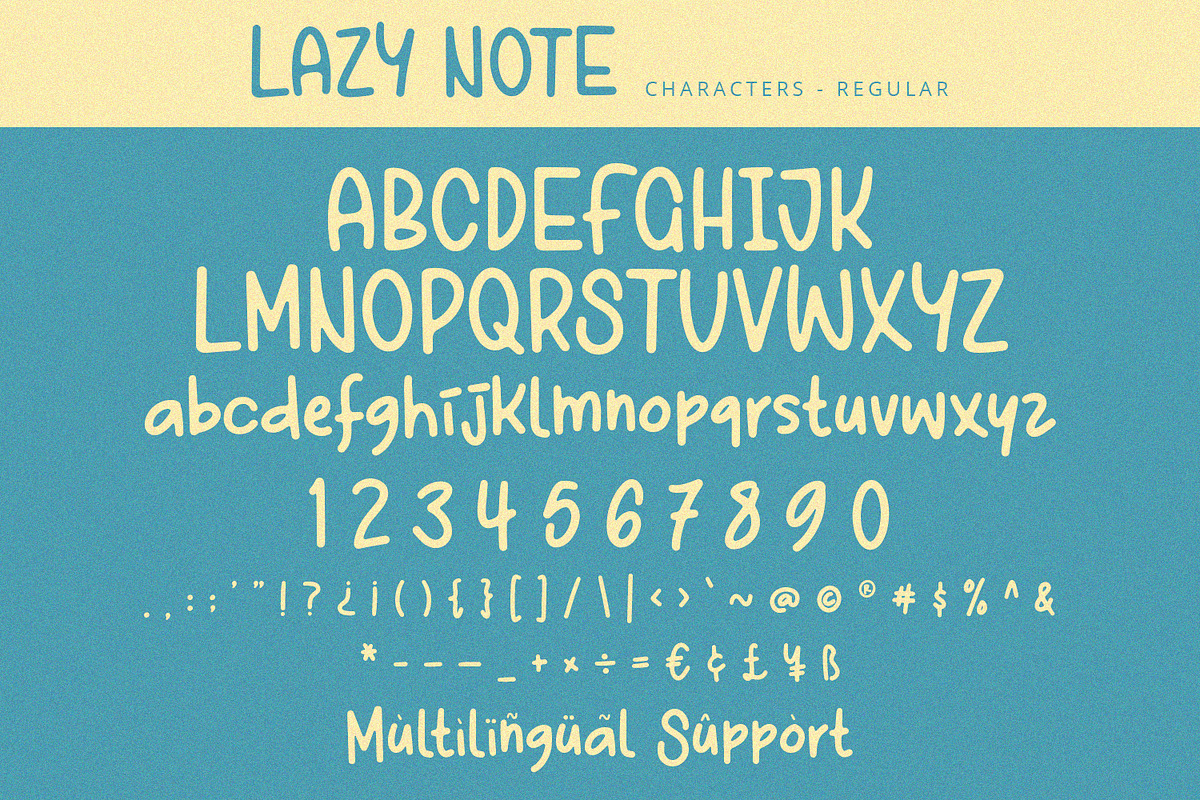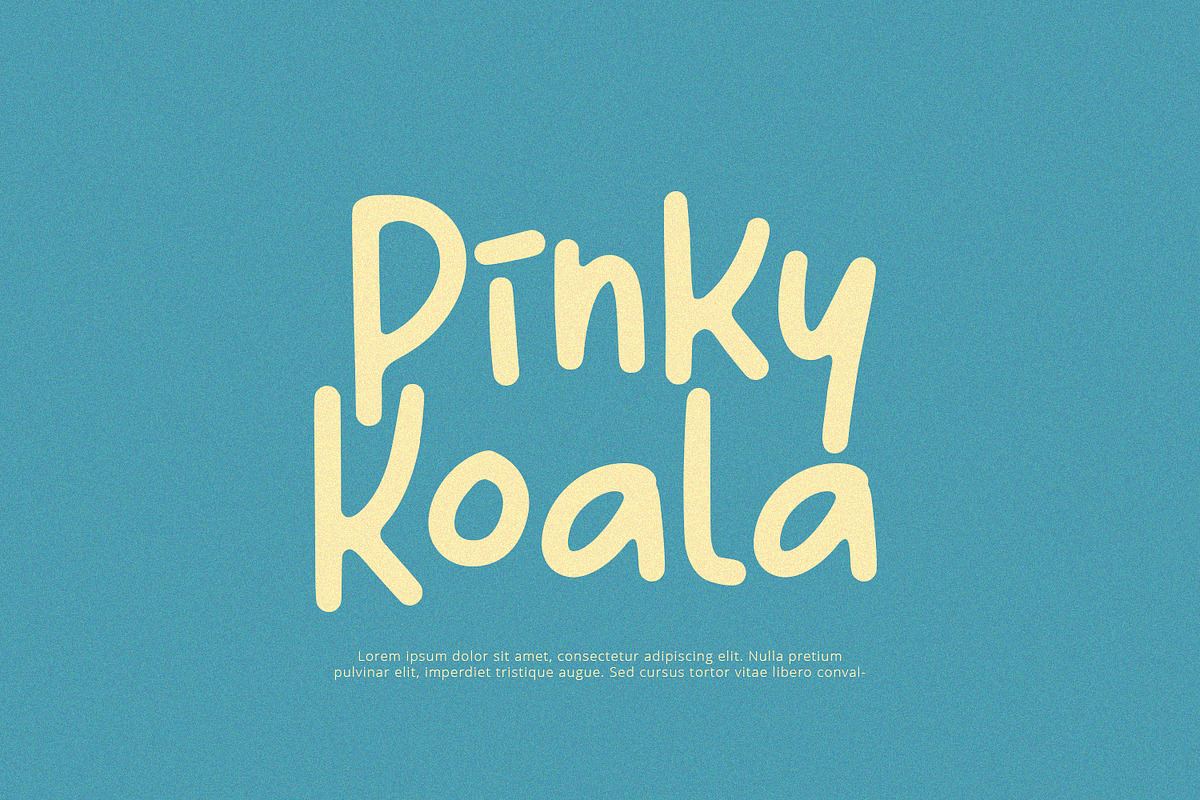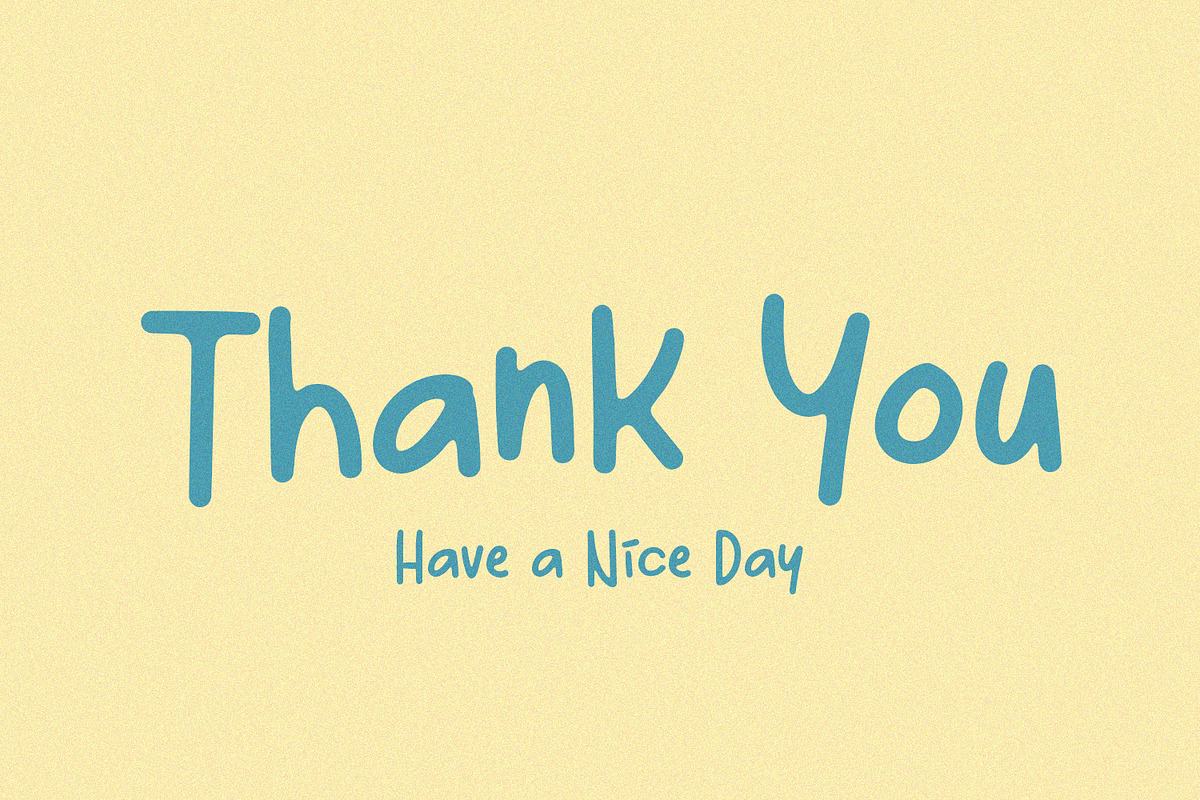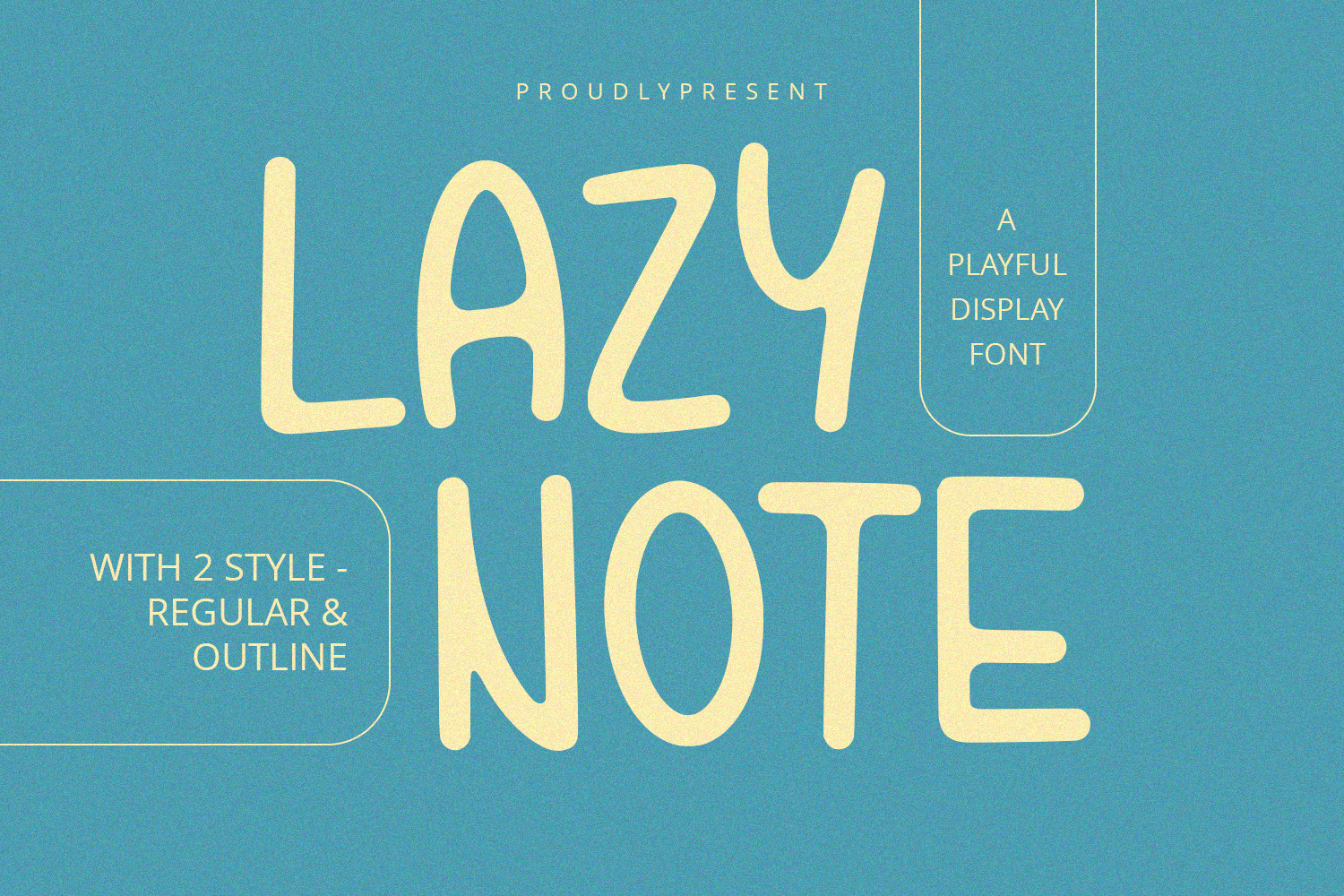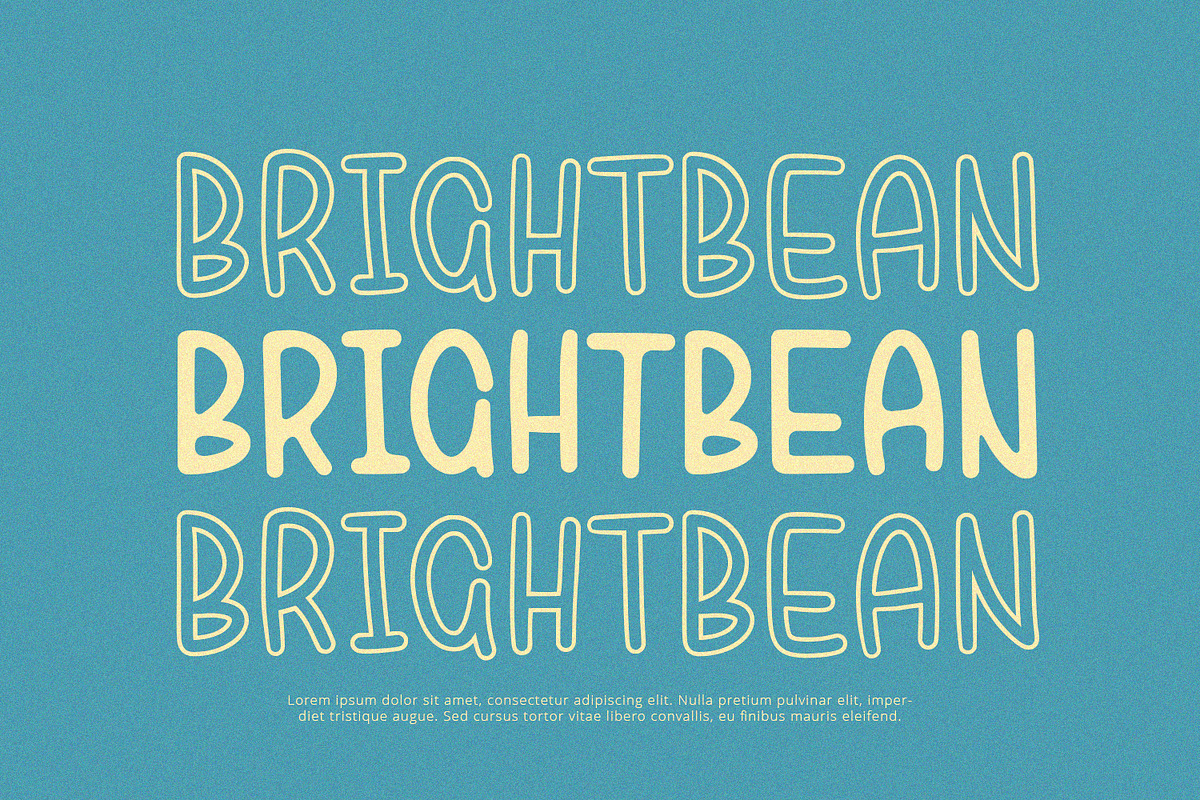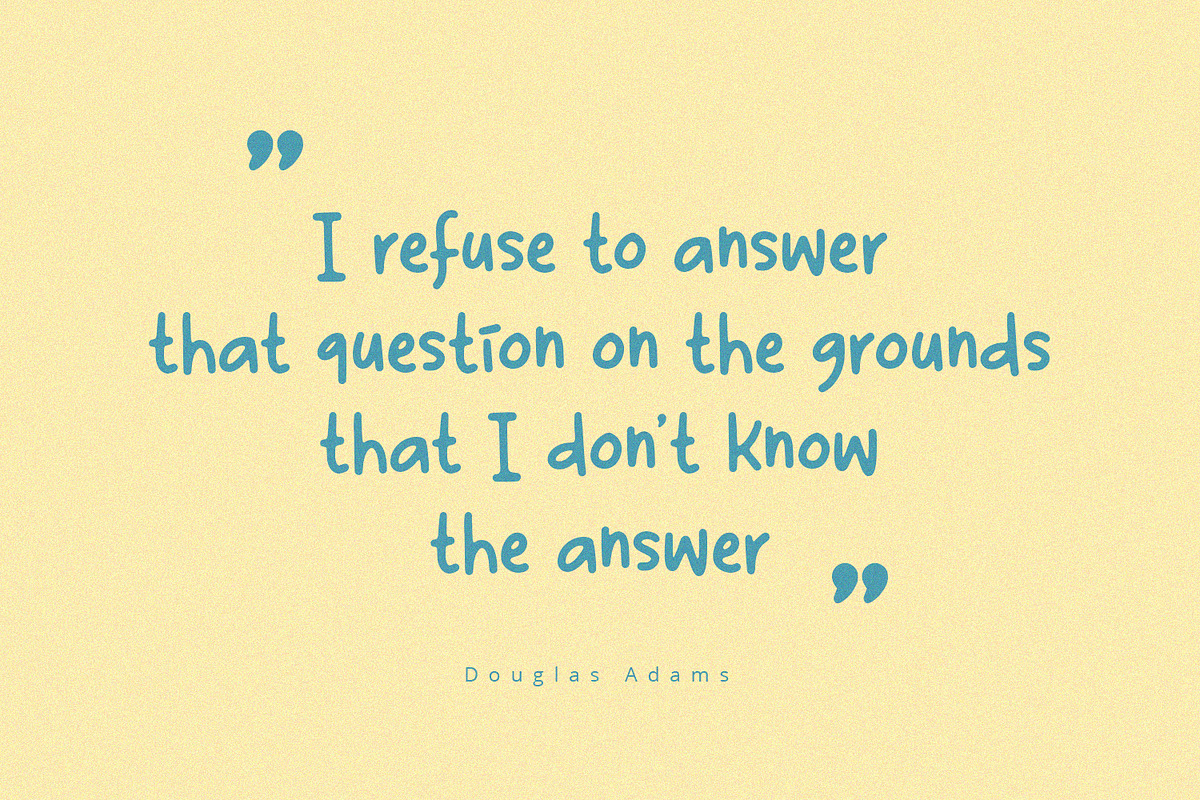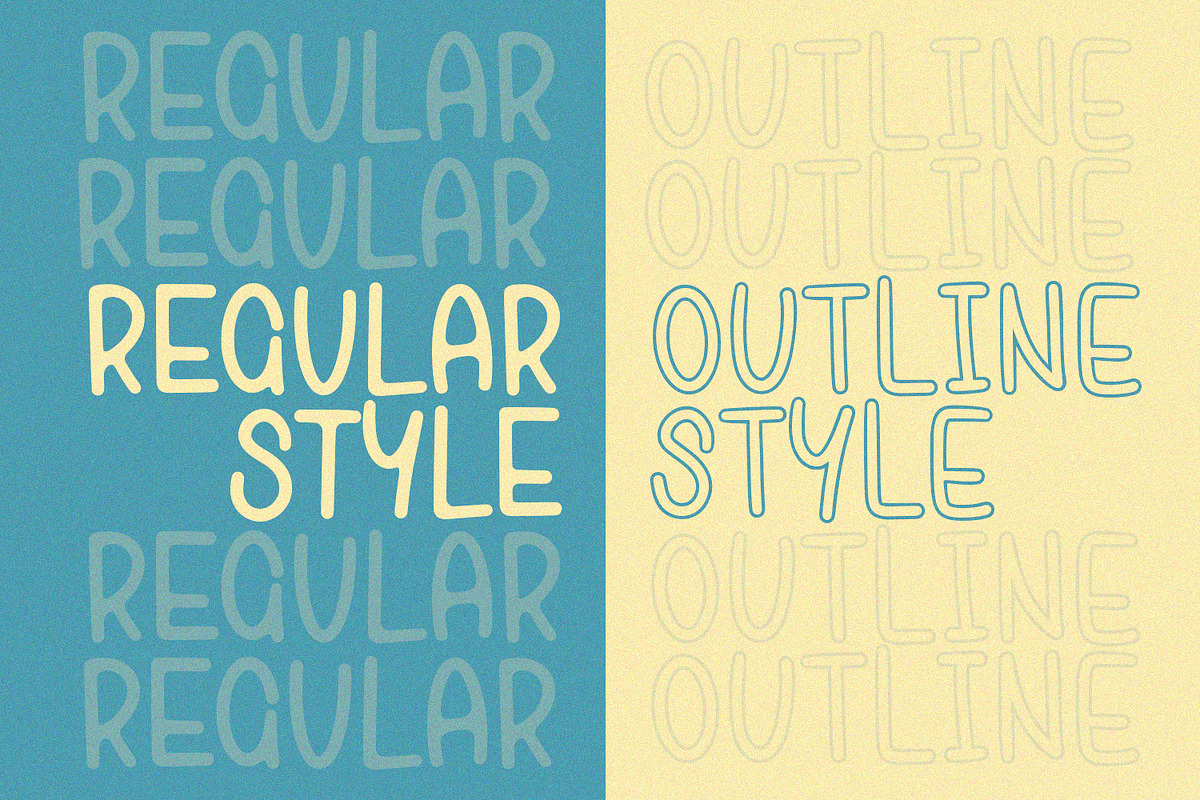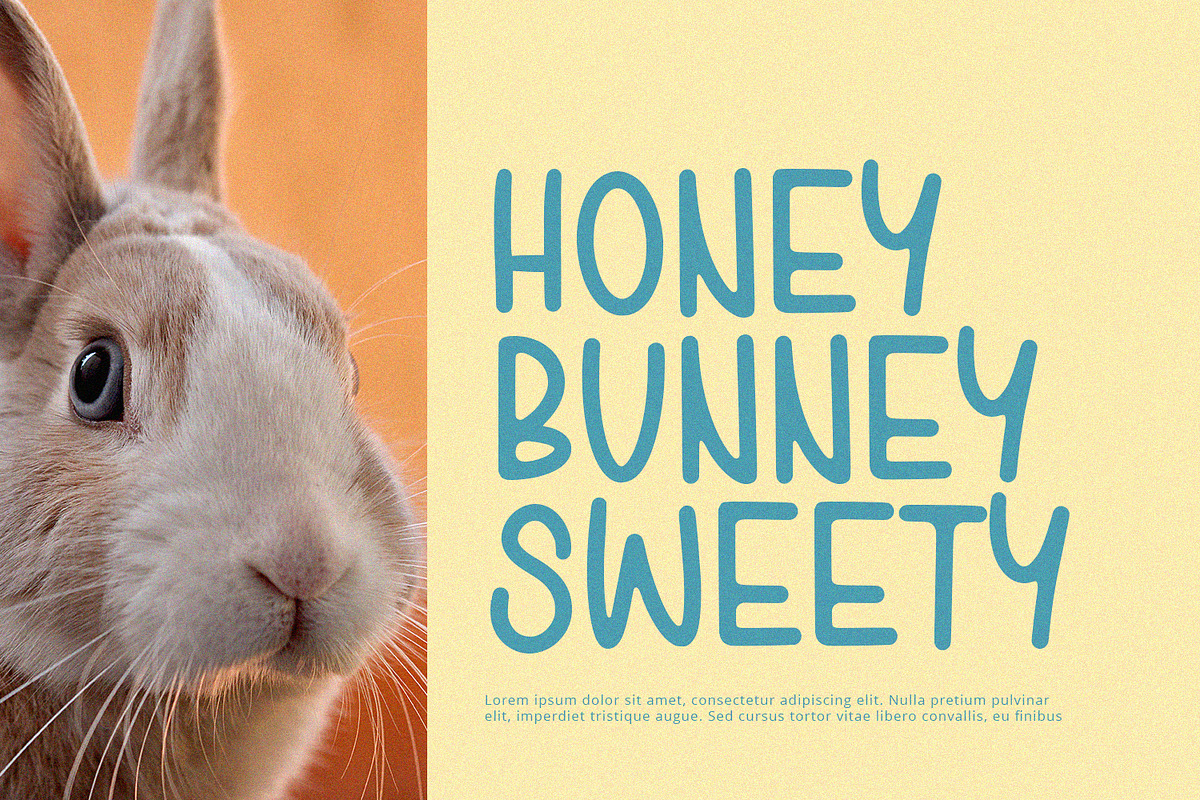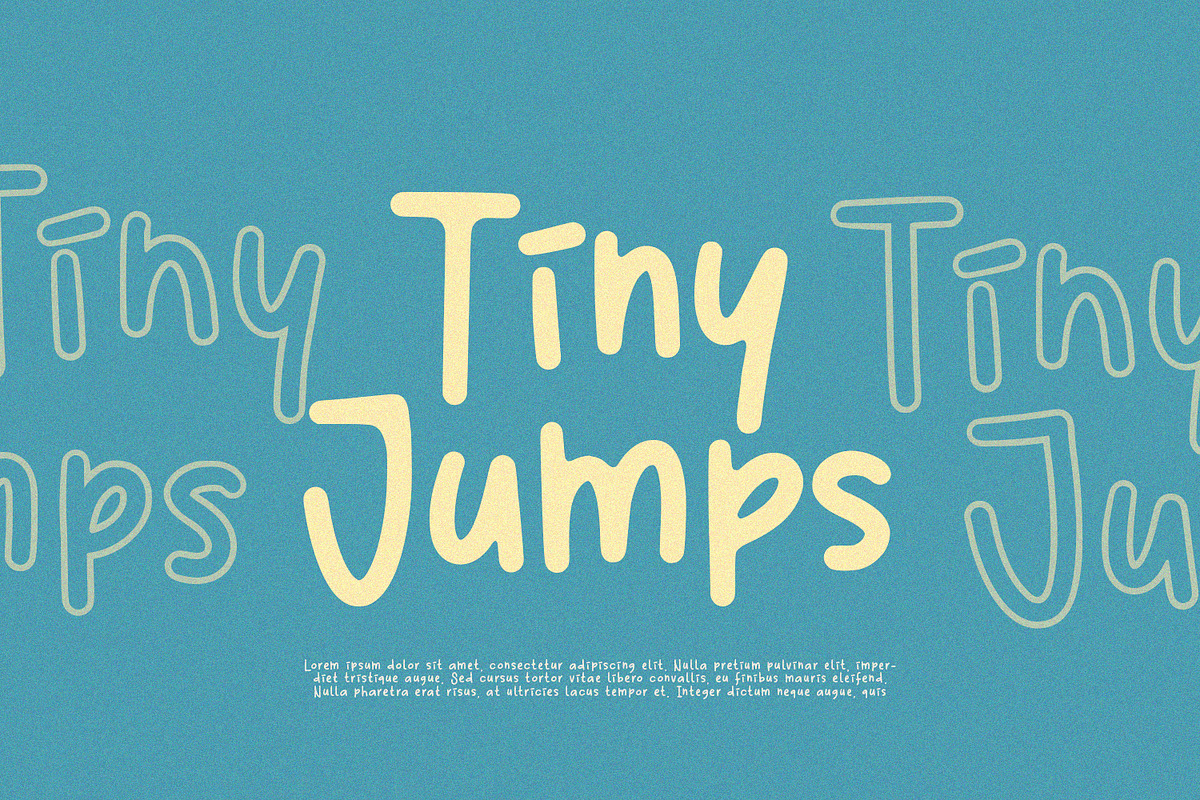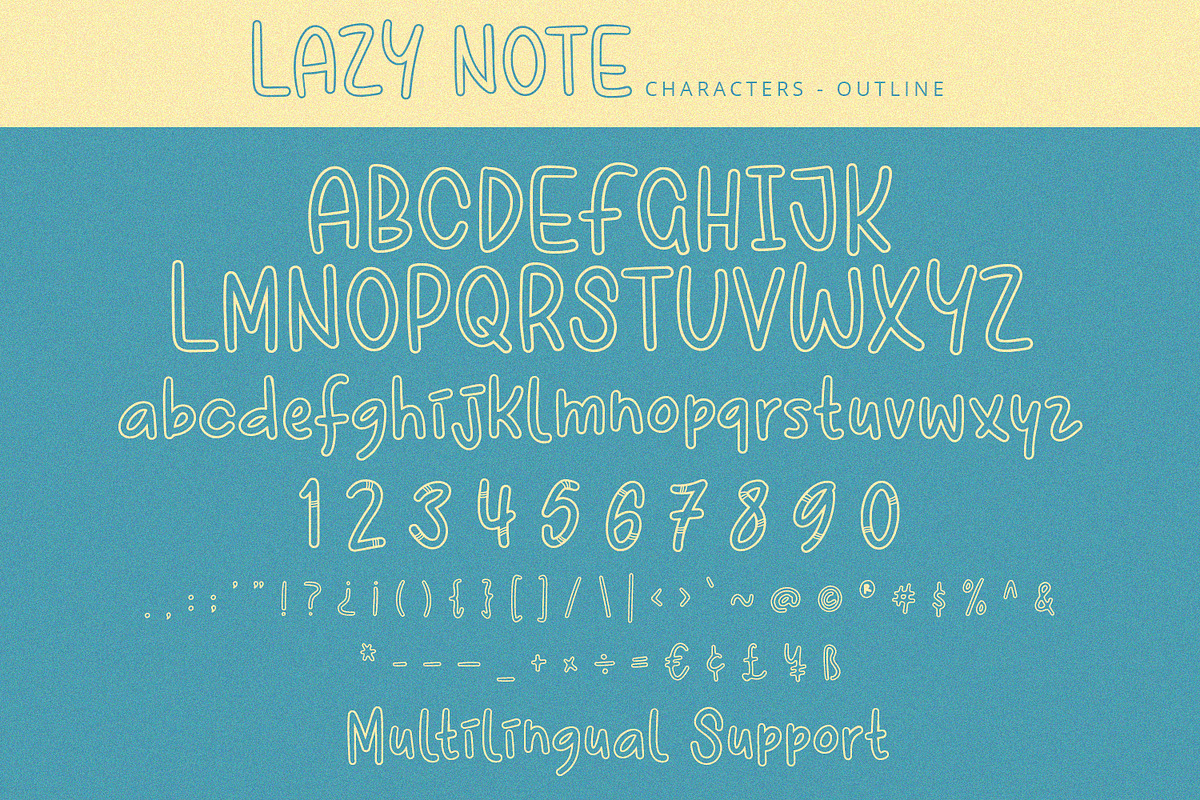
Lazy Note - Display Font
Lazy Note is display font with cute and playful feels. It will be perfectly used for Branding, Logo Design, Lettering, Logotype, Clothing, Poster, magazine, packaging, posters, shopping bags, t-shirts, book covers, photography, special events and other design project.